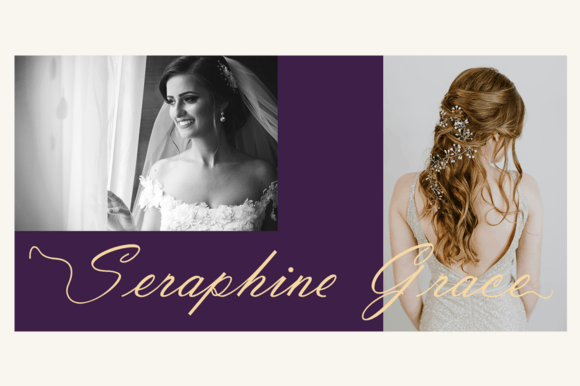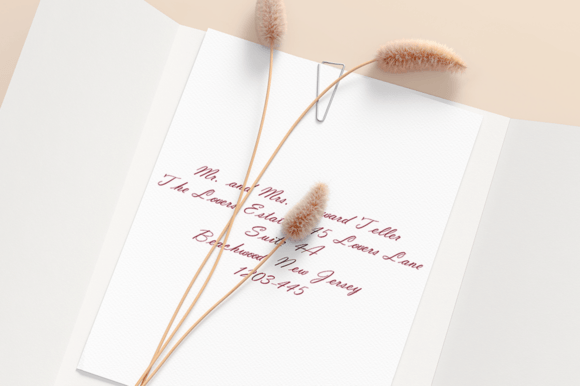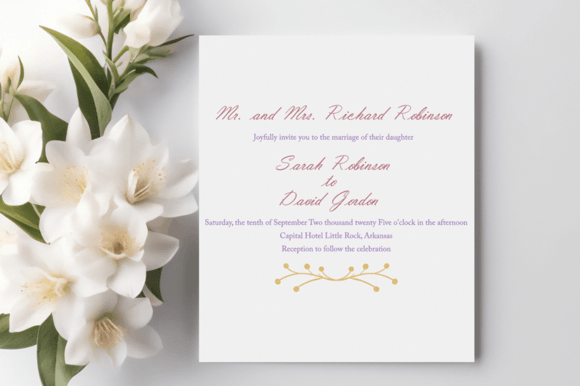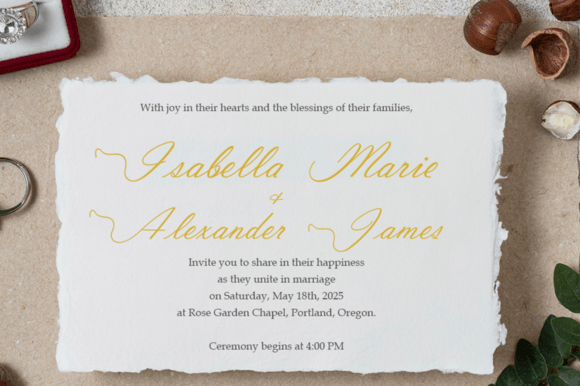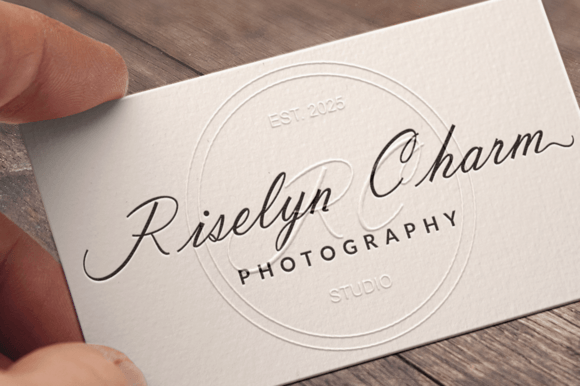
Introducing Elisaveta: The Ultimate Modern Script Font for Elegant Designs
In the world of typography, a font can make all the difference in elevating a design project from ordinary to extraordinary. For designers and crafters seeking a typeface that embodies both classic elegance and contemporary flair, look no further than Elisaveta. This modern script font is meticulously crafted with attention to detail, boasting graceful curves and refined strokes that add a touch of sophistication to any design.
The Perfect Balance of Luxury and Readability
Elisaveta strikes the perfect balance between luxury and readability, making it an ideal choice for high-end branding, sophisticated wedding invitations, elegant stationery, and any project that demands a touch of class. Its fluid lines and smooth transitions create a natural flow, adding a timeless charm to both digital and print materials. Whether you’re working on product packaging, social media posts, or editorial layouts, Elisaveta will bring a sense of refinement to your work.
One of the standout features of Elisaveta is its versatility. This font is suitable for a wide range of design projects, from minimalist designs to more elaborate, artistic creations. Its elegant and refined aesthetic makes it perfect for designers who want to add a touch of sophistication to their work. Whether you’re creating a luxurious brand identity, a beautiful wedding invitation, or a stunning editorial layout, Elisaveta is the perfect choice.
A Font That Makes a Statement
Elisaveta is designed to be more than just a typeface; it’s a statement. It reflects a sense of sophistication and luxury, making it an exceptional choice for designers who want to create a lasting impression. With Elisaveta, you can add a touch of elegance and refinement to your design projects, setting them apart from the rest. Its classic yet modern aesthetic makes it perfect for designers who want to create a unique and memorable brand identity.
Key Features of Elisaveta
- Classic Elegance: Elisaveta boasts a classic, elegant aesthetic that adds a touch of sophistication to any design project.
- Contemporary Flair: This modern script font has a contemporary flair that makes it perfect for designers seeking a fresh and stylish typeface.
- Meticulous Attention to Detail: Each letter is crafted with meticulous attention to detail, resulting in graceful curves and refined strokes.
- Luxury and Readability: Elisaveta strikes the perfect balance between luxury and readability, making it ideal for high-end branding and sophisticated designs.
- Versatility: This font is suitable for a wide range of design projects, from minimalist designs to more elaborate, artistic creations.
Use Elisaveta for Your Next Design Project
If you’re looking for a font that embodies both classic elegance and contemporary flair, look no further than Elisaveta. With its refined aesthetic, versatility, and attention to detail, this modern script font is perfect for designers and crafters seeking to add a touch of sophistication to their work. Whether you’re working on a high-end branding project, a sophisticated wedding invitation, or a stunning editorial layout, Elisaveta is the perfect choice.